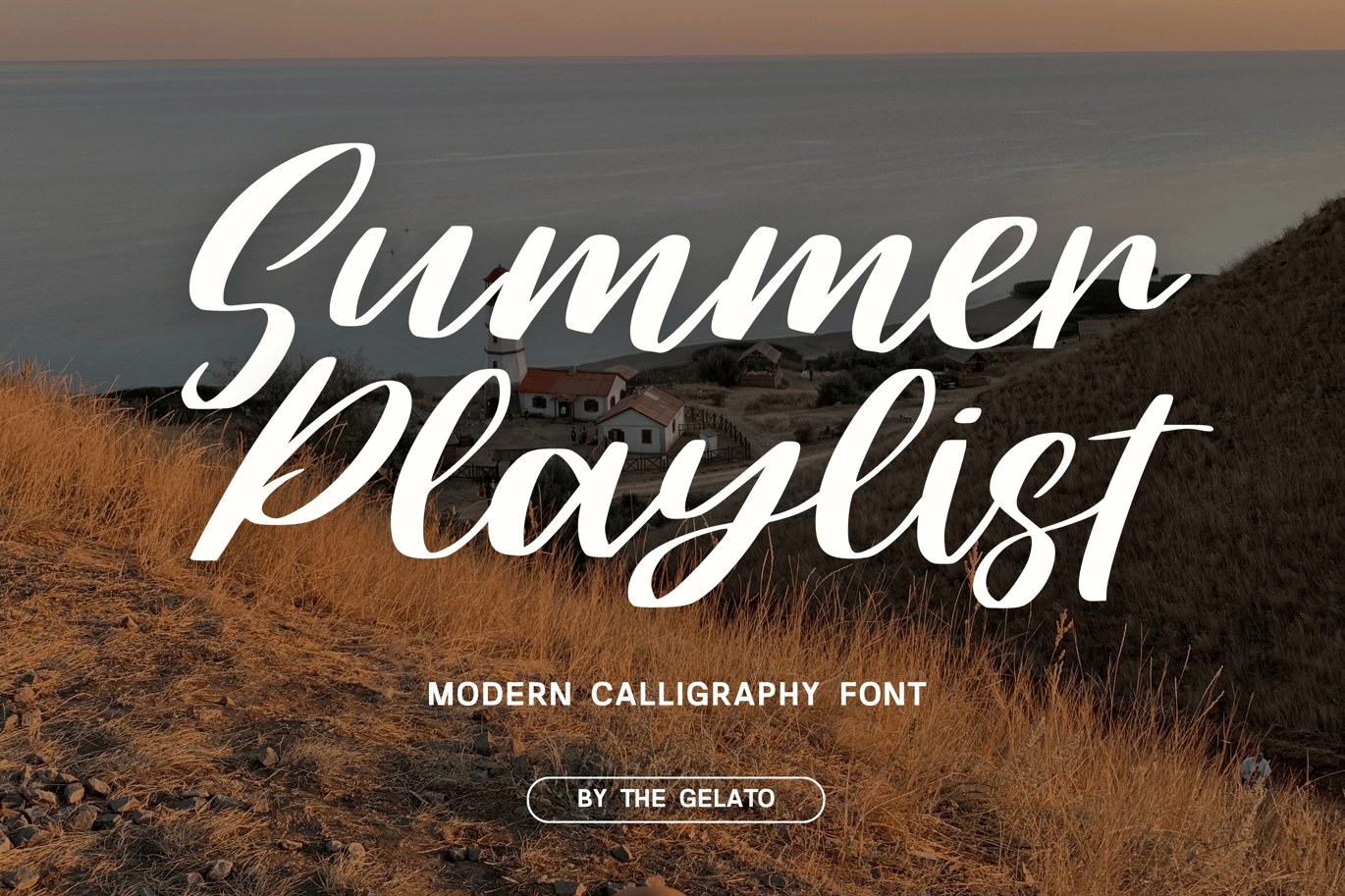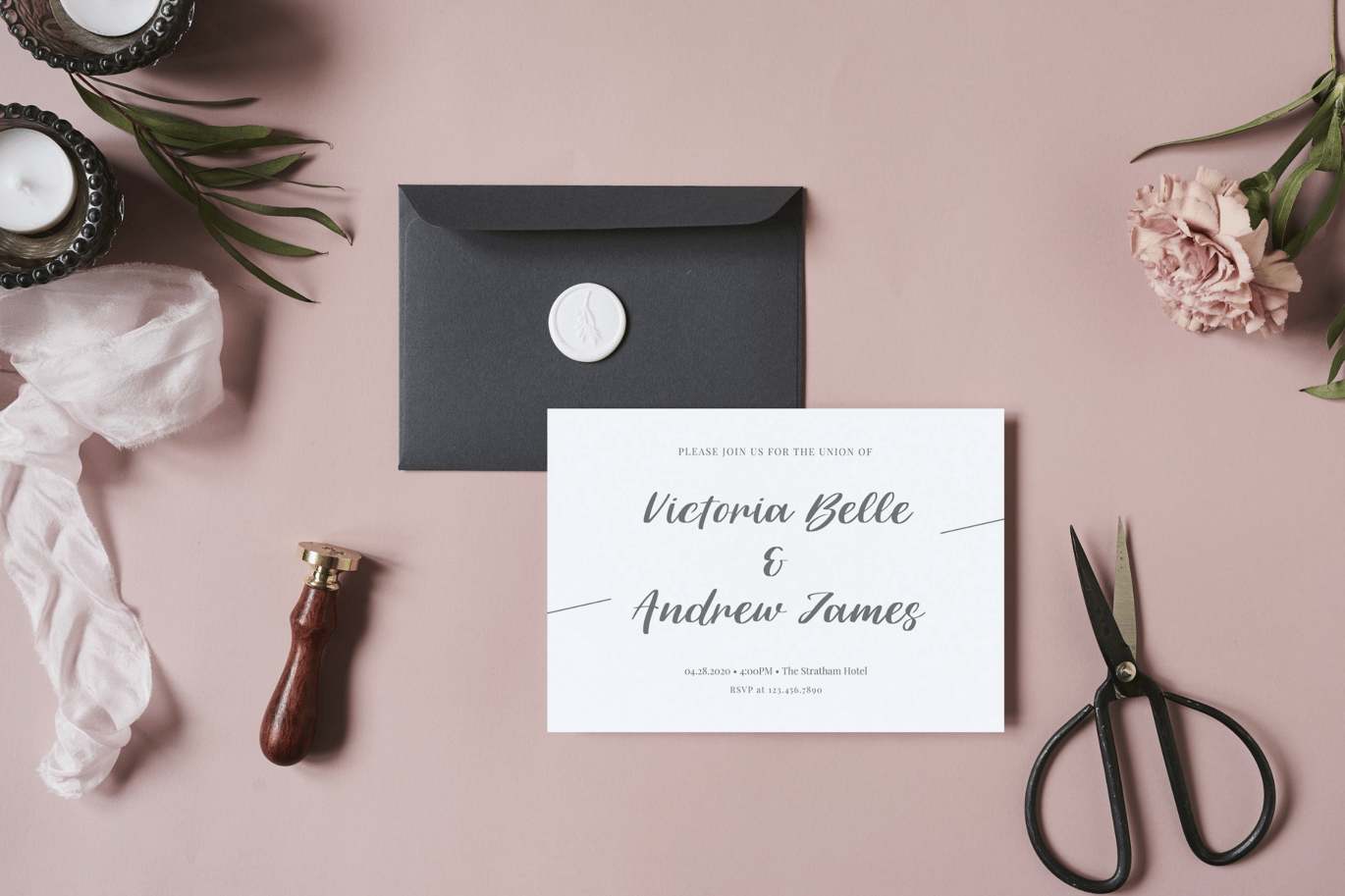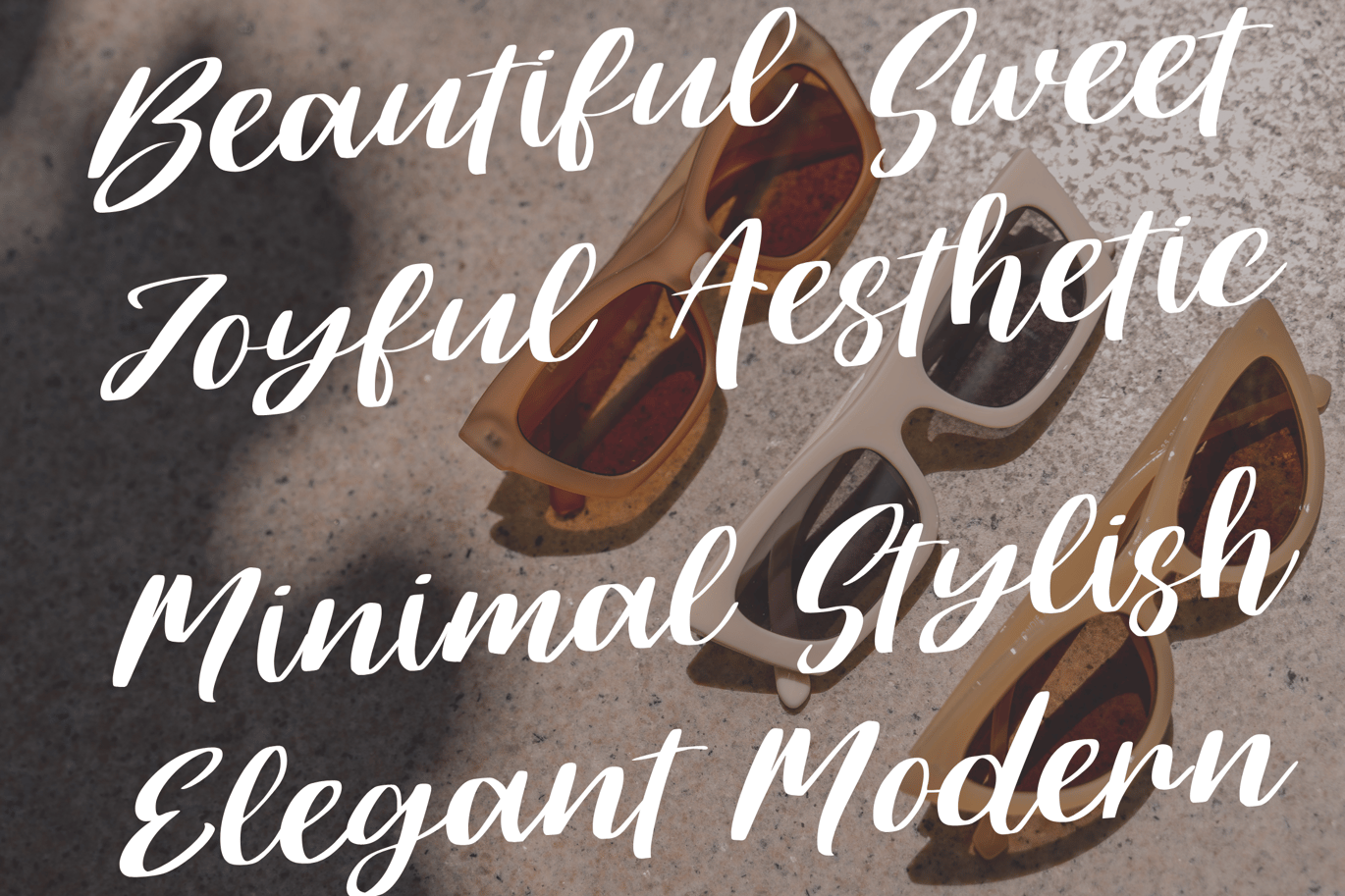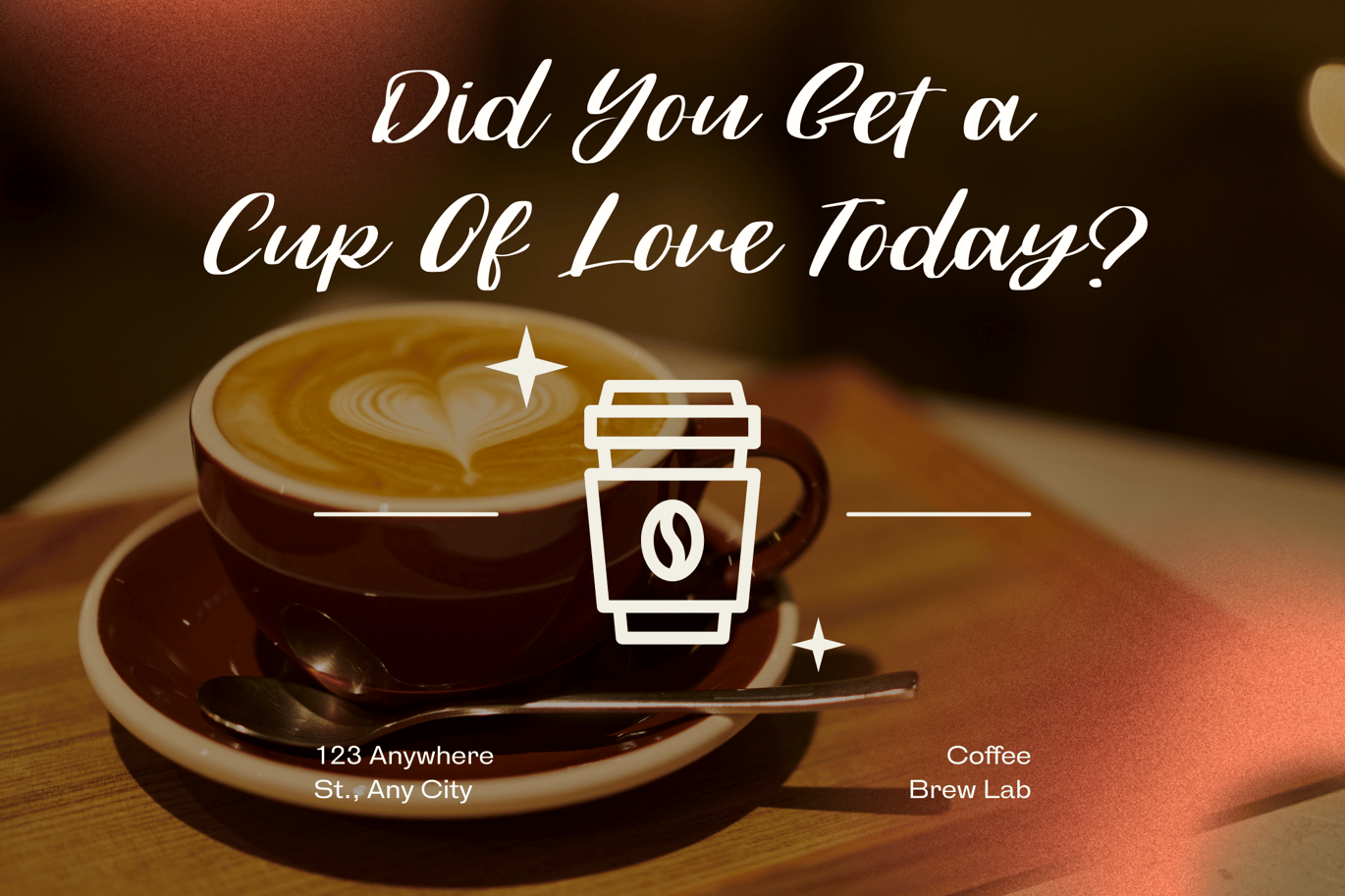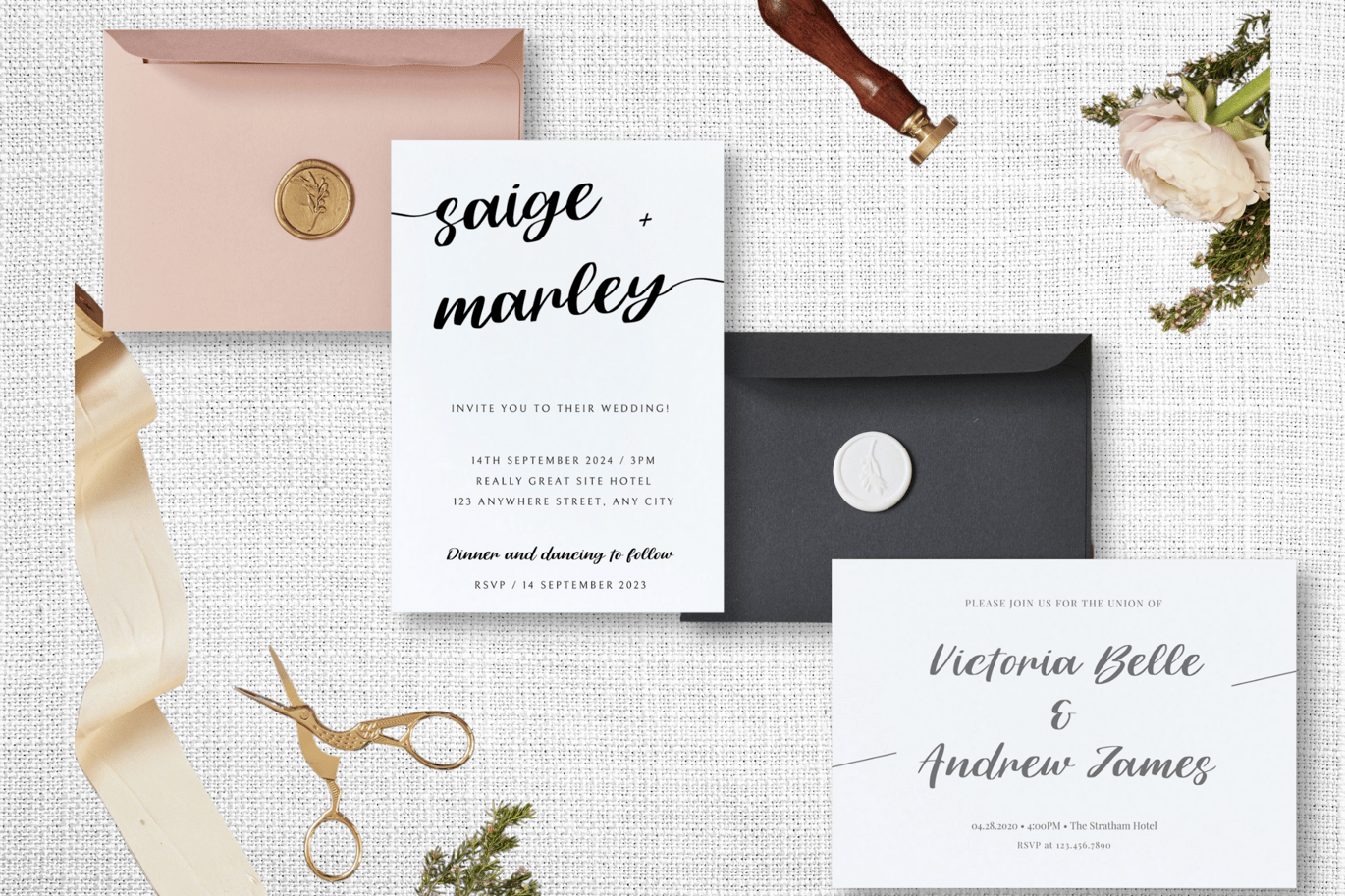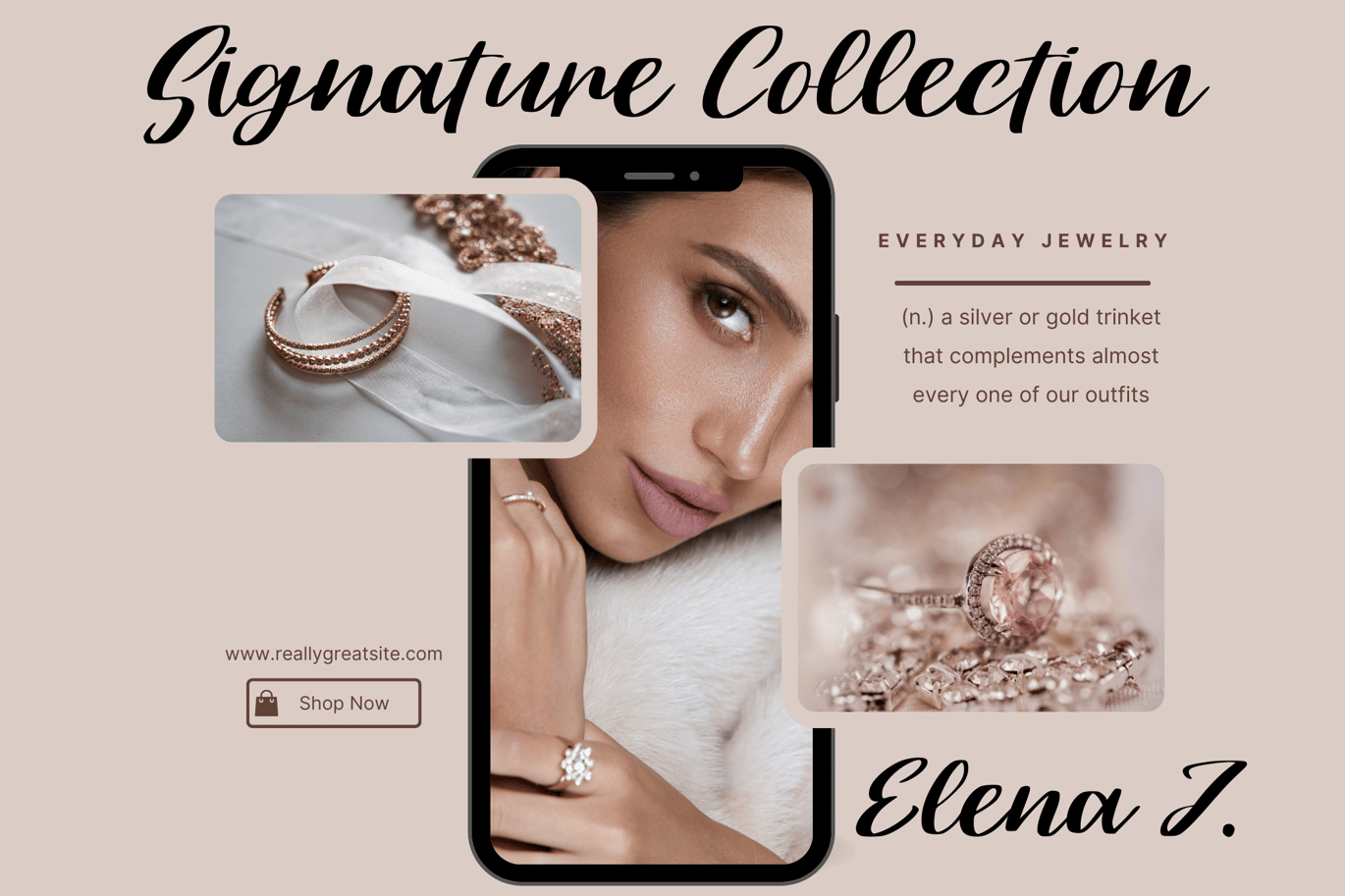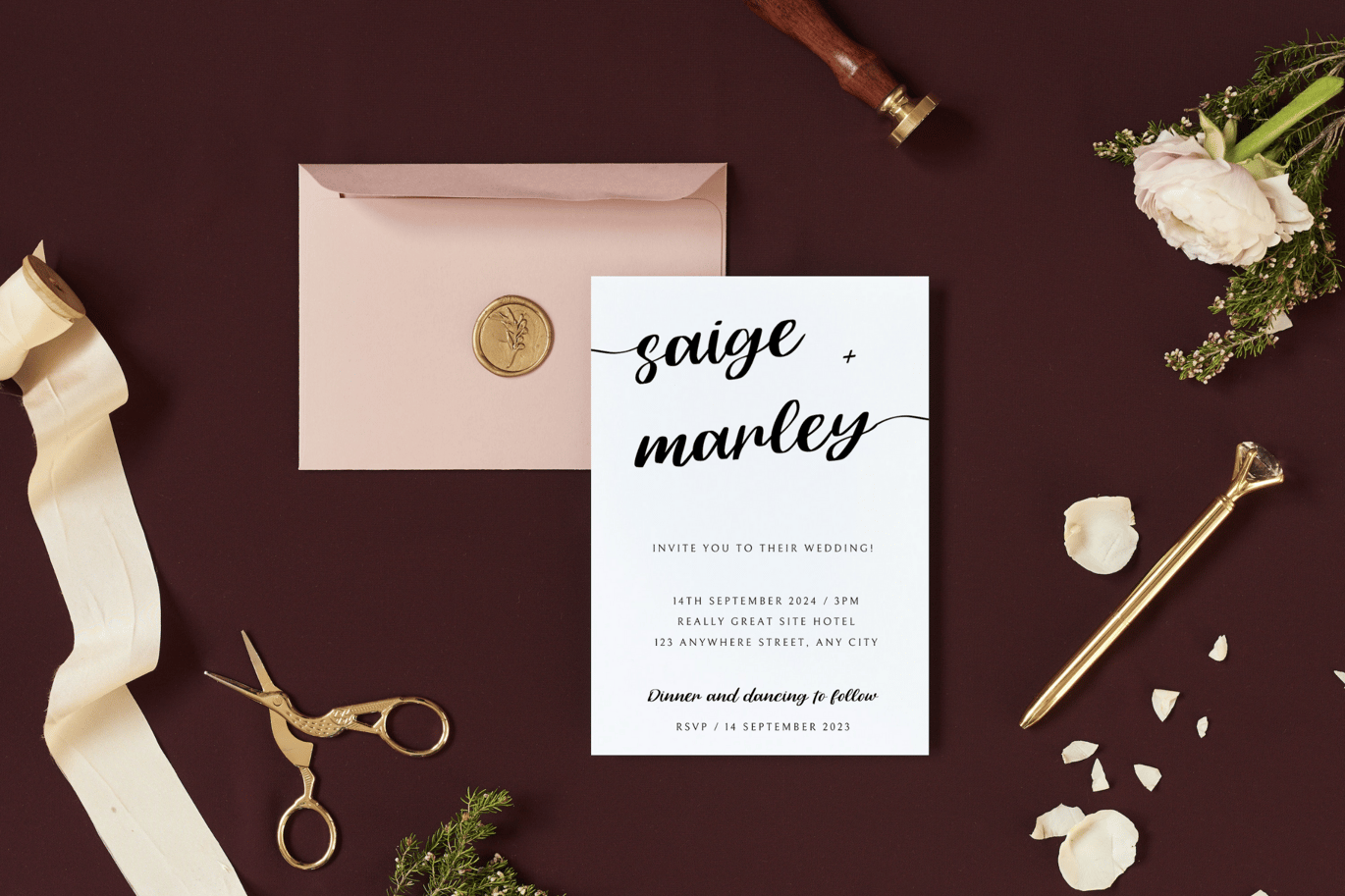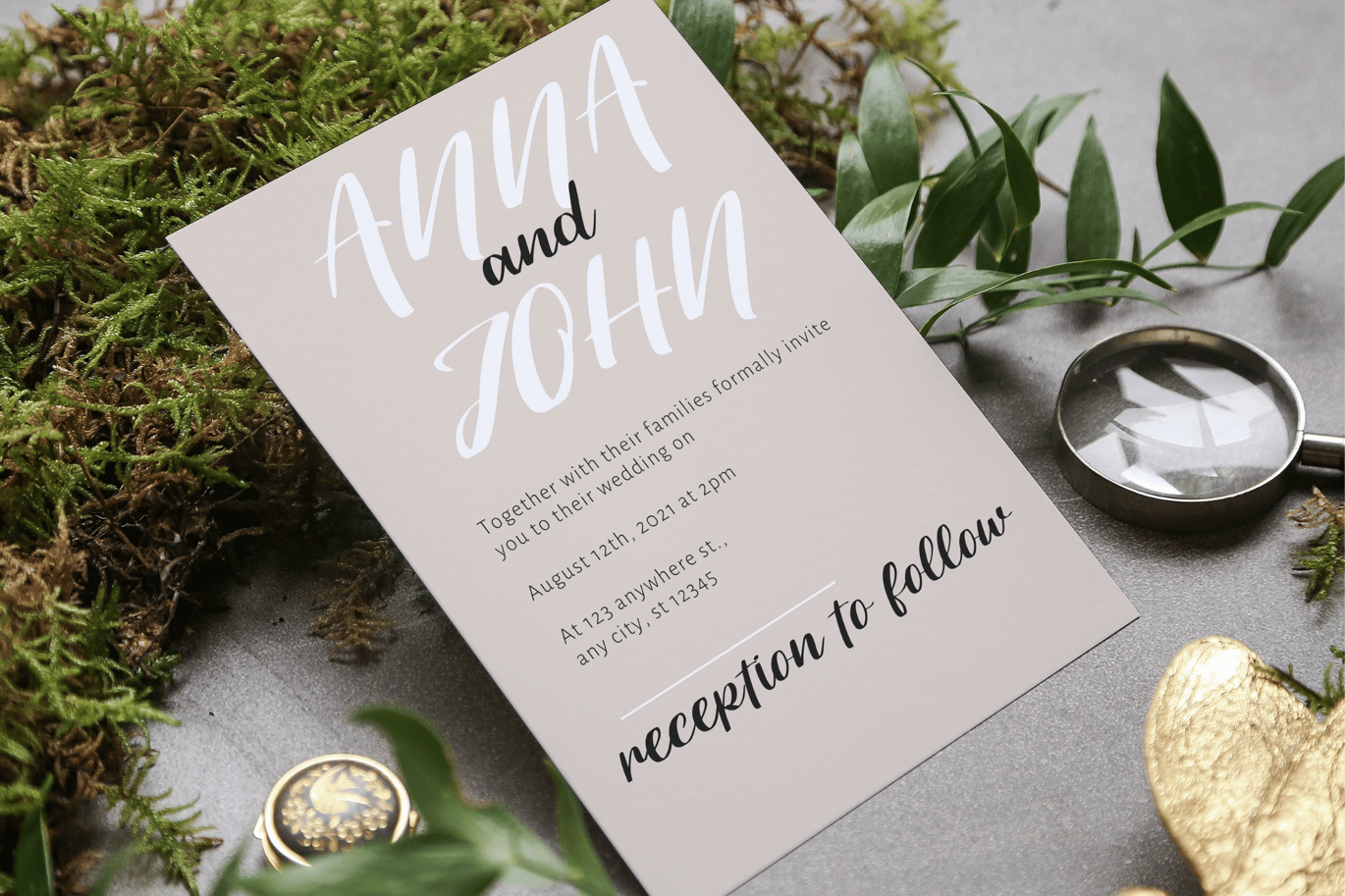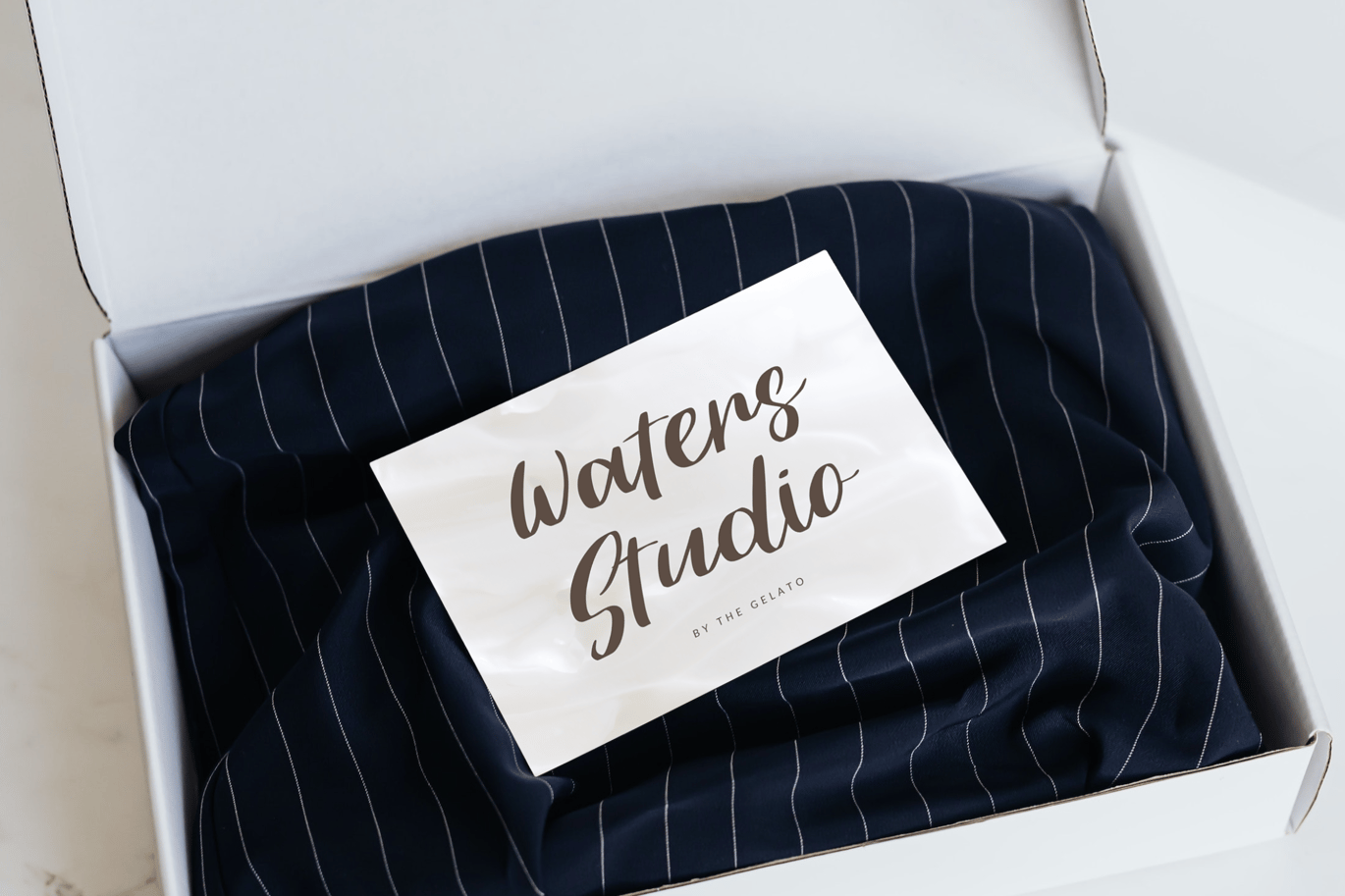
Summer Playlist Modern Calligraphy Font
Perfectly suitable for numerous use such as quotations, banners, logos, product packaging, titles, headers, menu lists, and invitation cards! Besides occasions like Weddings, it can work well on baby showers, birthdays, thanksgiving, Christmas, Valentine’s, etc.